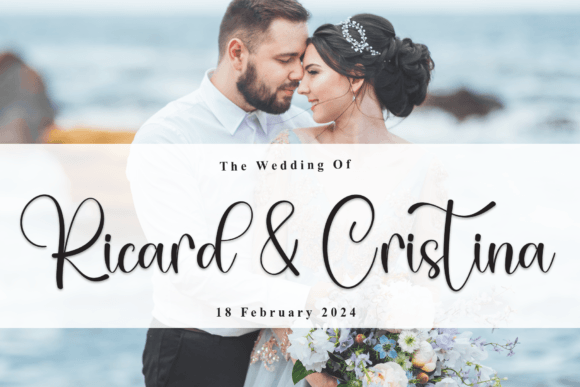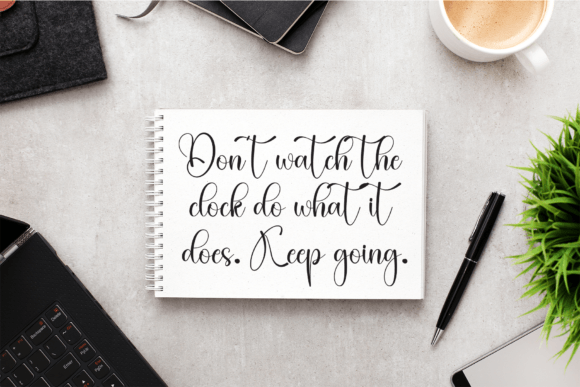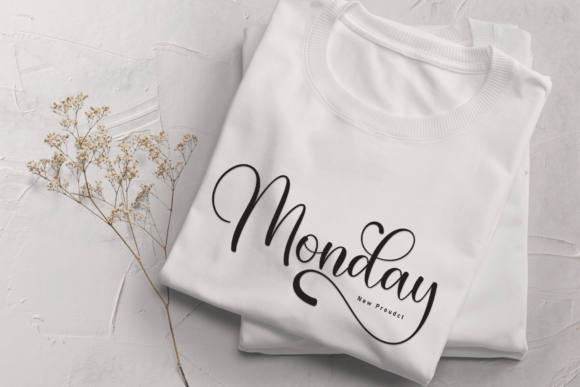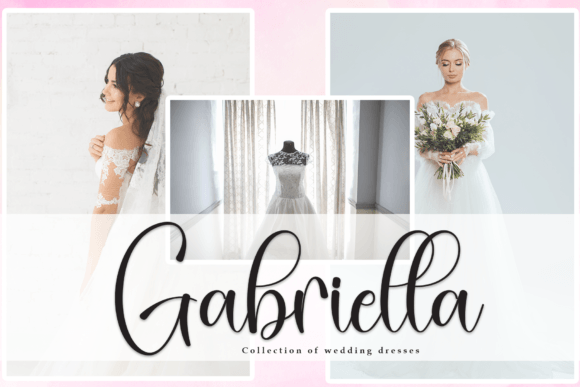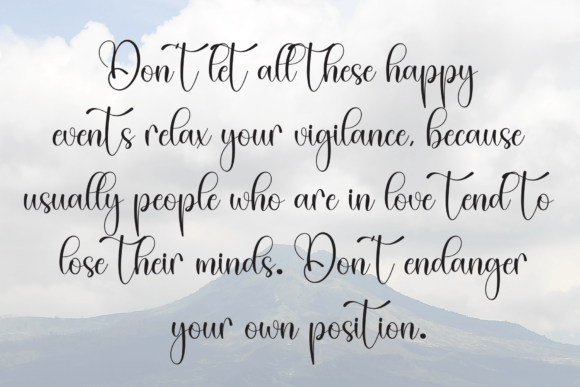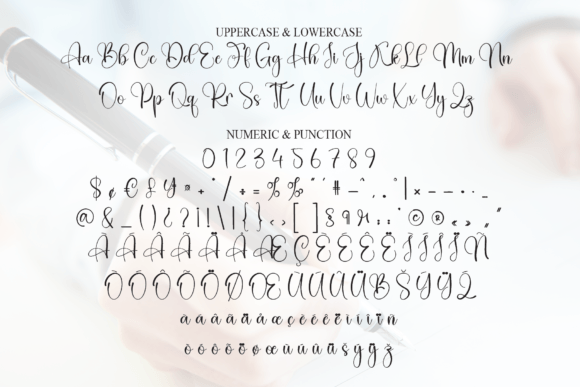
Unleash Your Creativity with the Magic of Caligraphy Font
Remember the moment when a blank canvas or a blank page stared back at you, waiting for your creative touch? You had an idea, but it was just a spark. It was the perfect moment to break out your favorite writing tools or design software and let your imagination run wild. As you begin to bring your vision to life, the right font can make all the difference.
Enter Caligraphy Font, a stunning script font that embodies the essence of elegance and sophistication. With its flowing lines and delicate curves, this magical font is the perfect companion for any creative project. Whether you’re designing social media graphics, crafting DIY projects, or simply want to add a touch of class to your writing, Caligraphy Font is the perfect tool to elevate your work.
Key Features of Caligraphy Font
- Unique Characteristics: Distinctive calligraphic strokes, elegant letterforms, and refined flourishes for a sophisticated look
Designer Review: Caligraphy Font
First of all, I have to say that I’m a big fan of the aesthetic of Caligraphy Font. ✨ The elegant, handwritten style is perfect for adding a touch of sophistication to any design project. The font is highly legible and works well in both print and digital formats.
- ✨ High-quality, detailed design
- ✨ Versatile and works well in various contexts
- ✨ Easy to read and understand
However, as with any font, there are some limitations to consider. ⚠️ Caligraphy Font is not ideal for use in small sizes or low-resolution applications, as the intricate details can become difficult to read. Additionally, the font may not be suitable for use in informal or playful contexts, as its elegance can come across as somewhat formal.
Overall, I think Caligraphy Font is a solid choice for designers looking to add a touch of sophistication to their projects. While it may not be suitable for every context, it’s a great option to have in your toolkit.
Getting the Most Out of Caligraphy Font
Use Caligraphy Font for titles, headings, and other decorative text elements.
Combine with other fonts to create a visually appealing contrast.
Event signage and banners
Marketing materials and advertisements
Book covers and title pages
Alternatives to Caligraphy Font for Designers
Playfair Display is a luxurious and elegant serif font, ideal for use in high-end branding, magazine headlines, and advertising. It features a classic feel with a touch of sophistication.
Comparison to Caligraphy Font: While both fonts are elegant, Playfair Display is more refined and less ornate, making it a better choice for formal applications. It also features a more balanced and harmonious design.
Great Vibes is a modern script font with a friendly and approachable feel, perfect for use in invitations, social media, and informal branding. It features a relaxed and casual design.
Comparison to Caligraphy Font: Great Vibes is more casual and less formal than Caligraphy Font, making it a better choice for everyday applications. It also features a more fluid and expressive design.
Pacifico is a beautiful and elegant script font with a touch of sophistication, ideal for use in branding, invitations, and advertising. It features a classic feel with a relaxed and casual design.
Comparison to Caligraphy Font: Pacifico is more refined and less ornate than Caligraphy Font, making it a better choice for formal applications. It also features a more balanced and harmonious design.
Lobster is a fun and playful script font with a retro feel, perfect for use in informal branding, invitations, and advertising. It features a casual and expressive design.
Comparison to Caligraphy Font: Lobster is more casual and less formal than Caligraphy Font, making it a better choice for everyday applications. It also features a more whimsical and playful design.
Can I use Caligraphy Fonts for print or digital applications?
Yes, Caligraphy Fonts can be used for both print and digital applications. However, keep in mind that digital displays may not be able to render the full range of nuances and subtleties found in traditional calligraphy. For print applications, you can use high-quality fonts that are designed specifically for printing. For digital applications, you can use fonts that are optimized for screen display, such as fonts with